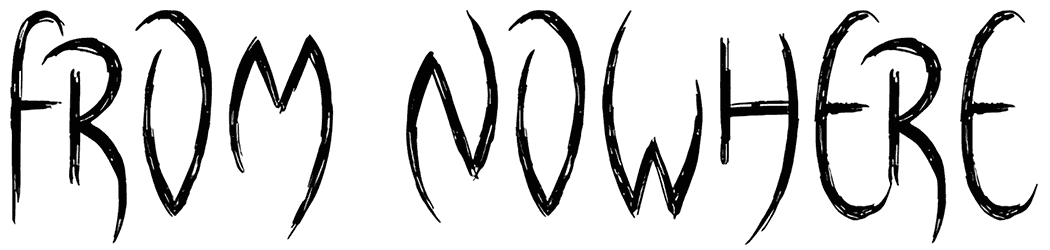
From Nowhere Font
From Nowhere is a unique horror font that comes with rounded and angular characters; thus, it has the real potential to add a sense of jauntiness, fear, dread, or dynamism to all of your creative ideas. This all-caps han…
From Nowhere is a unique horror font that comes with rounded and angular characters; thus, it has the real potential to add a sense of jauntiness, fear, dread, or dynamism to all of your creative ideas. This all-caps handwritten font would perfectly sit on a wide set of graphic content the such as logos, product labels, billboards, stickers, or social media posts.